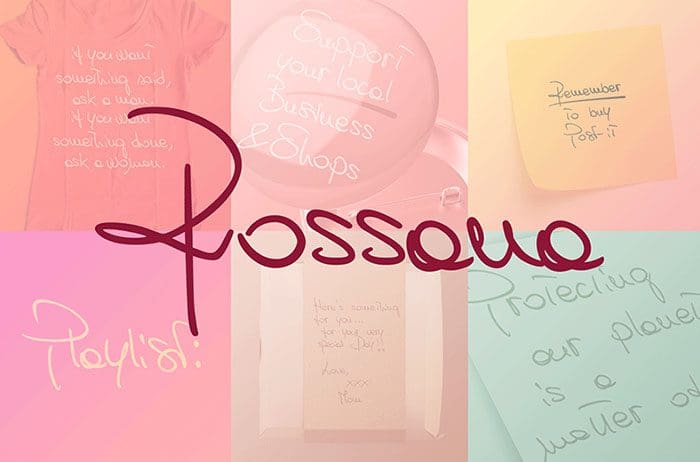
Rossana Handwritten Font
Rossana Handwritten Font. A true realistic female handwriting. One that looks like “real” handwriting coming from a “real” person. Enjoy this font and the many gliphs that will help you create an even more realistic flow. Thanks to Stefano Campagnoli for sharing this font! Take a look at this portfolio for more of his stunning fonts.